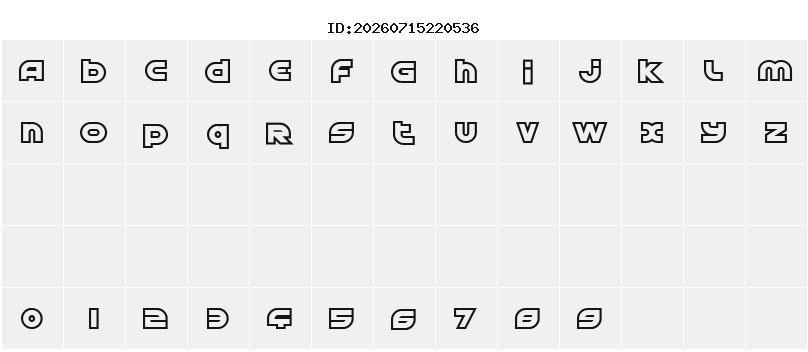
Astral Delight Upright Preview
• Font Name: Astral Delight Upright
• Full Font Name: Astral Delight Upright
• Version: Version 1.00 August 13, 2016, initial release
• Designer: IMAGEX
About Astral Delight Upright.ttf
Astral Delight Upright.ttf is a modern, elegant sans-serif font designed for ultimate readability and visual harmony. Perfect for branding, headlines, web design, and print materials.